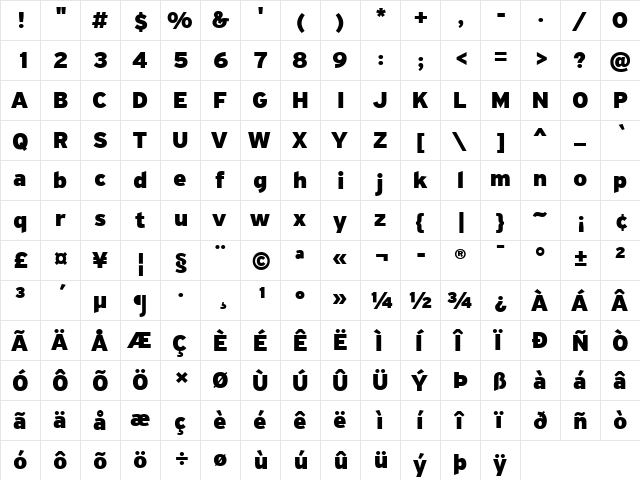
PF Highway Sans Pro Black
Black · Parachute蠗orldwide Panos Vassiliou ·
DesignerPanos Vassiliou
Design Context for PF Highway Sans Pro Typeface
PF Highway Sans Pro takes a measured approach to typography — its balanced proportions and neutral character make it a reliable workhorse for both digital and print work.